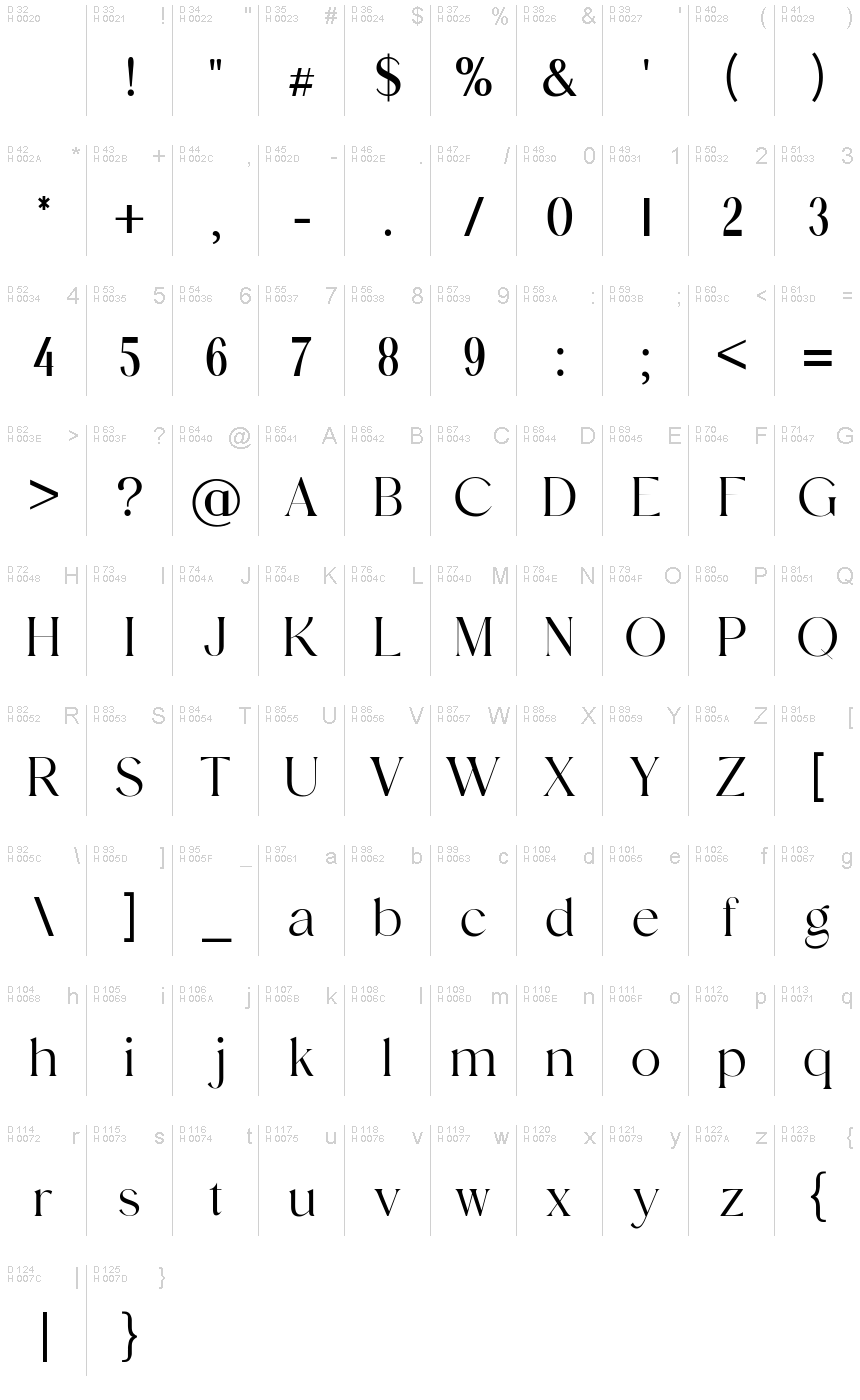
Vigosamine
Vigosamine, crafted by UI Creative, is a serif font that exudes sophistication and elegance. Its graceful curves and sharp serifs create a harmonious balance between classic refinement and modern flair. The letters are meticulously designed to capture attention with their distinct contrasts and clean lines.
Perfect for high-end branding, editorial design, or luxury product packaging, Vigosamine adds a touch of class to any project. Its timeless aesthetic ensures versatility across various applications while maintaining a strong visual impact. Whether used in print or digital mediums, Vigosamine elevates your design with its refined presence and impeccable style.